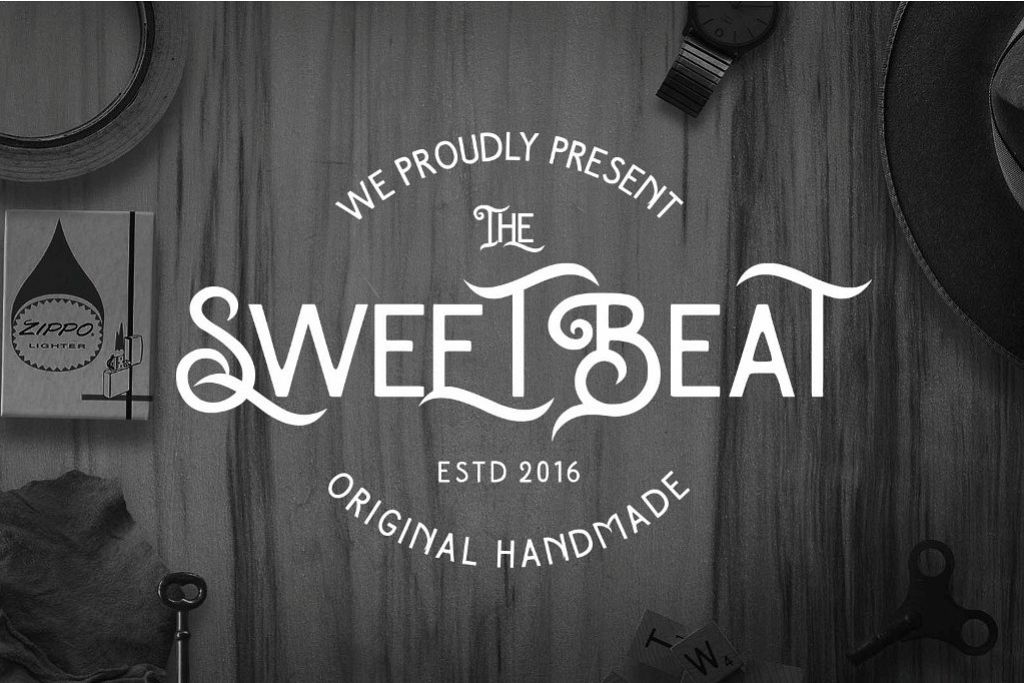
The SweetBeat Typeface
**The SweetBeat Typeface** A handmade typeface that inspired from hand-drawn lettering and vintage style, suitable for your awesome works (Brands, Poster, Logo, Advertisement, etc) **Features :** - Stylistic Alternates - Stylistic Set The Standard License for Fonts now covers Commercial use. Installable items (Fonts and Add-Ons) can be used in an unlimited number of projects and End Products for Sale. Follow me on Instagram & Behance to get the latest updates on new typefaces and Artworks : https://www.behance.net/shirongampus https://www.instagram.com/shirongampus Thanks, Shirongampus
The SweetBeat Typeface example image 1